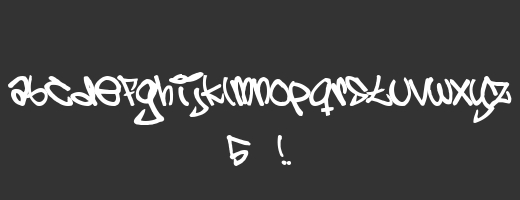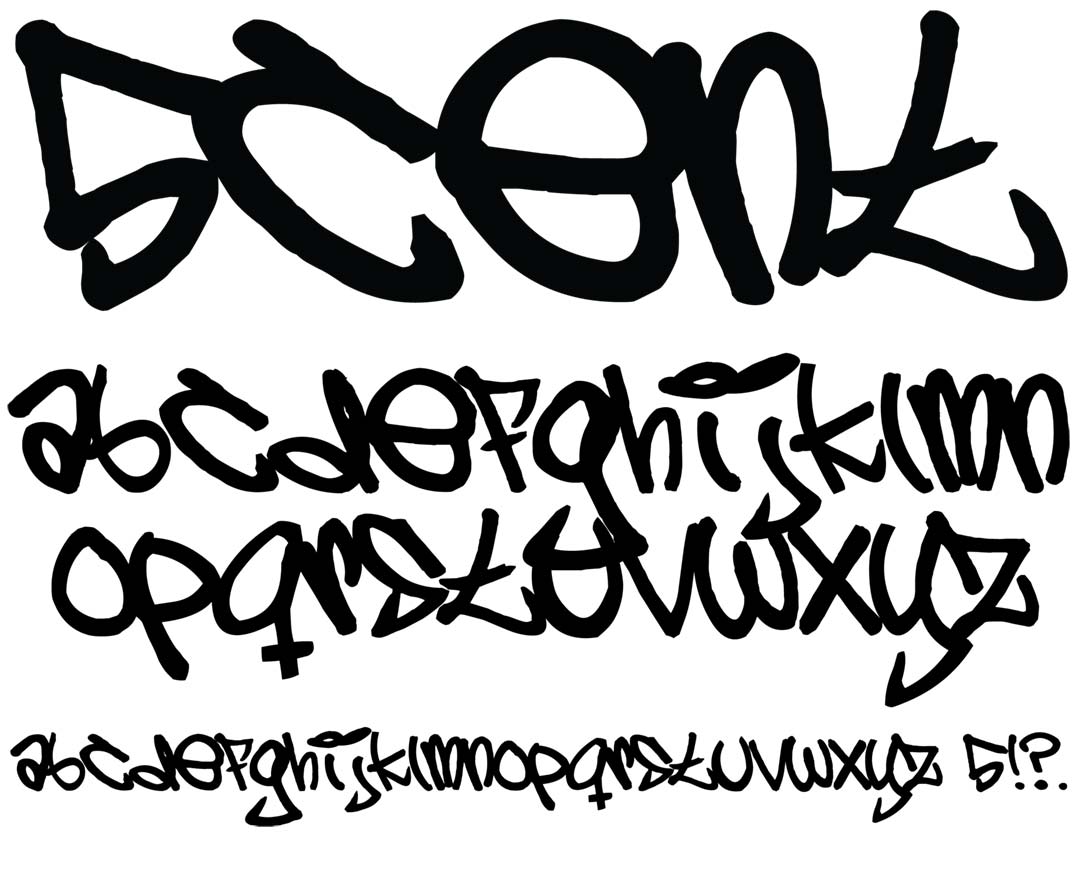
5 Cent
5 Cent Graffiti Alphabet
5 Cent Graffiti Font Family
5 Cent has been seen on television, print media & all over the web for quite a while now. As part of the original Waldenstrom collection this tag style font as one of the earliest graff style fonts & is a permanent part of the GF collection.